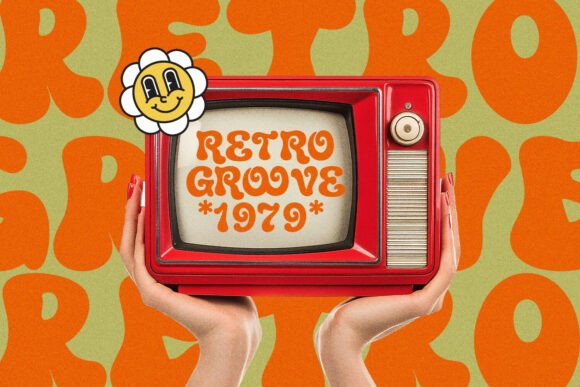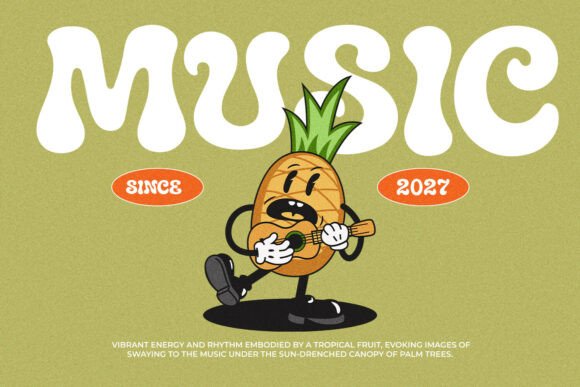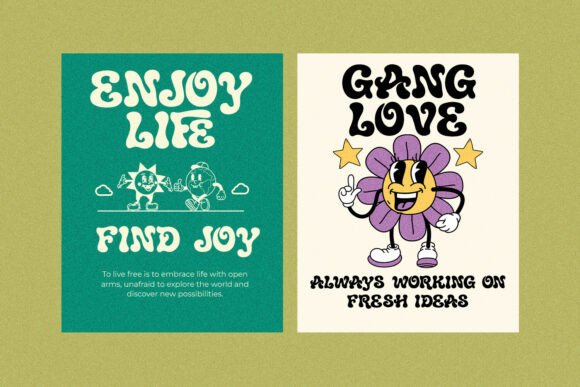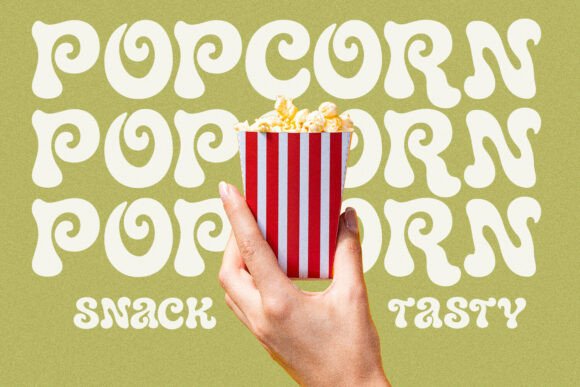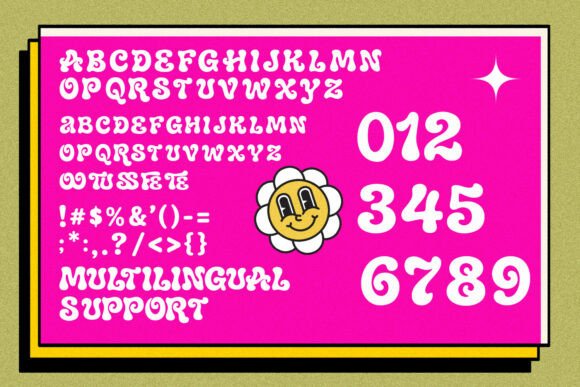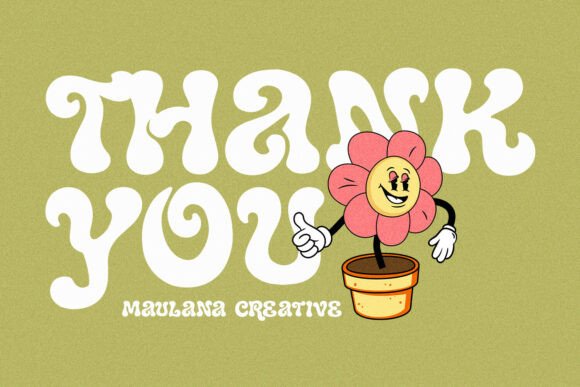
The Perfect Blend of Retro Funk and Modern Design
As designers, we’ve all had those moments when the perfect font comes along and sparks a creative idea. For us, it’s the thrill of discovering a typeface that perfectly captures the essence of a bygone era. And for those who crave a blast of nostalgia, we’re excited to introduce you to the Gediol Paund Font – a vibrant display font that embodies the carefree spirit of the 1970s.
Characterized by its bold, flowing curves and playful wavy structures, Gediol Paund Font radiates a cheerful, psychedelic energy that’s perfect for eye-catching headlines, vintage posters, and creative branding. With its unique ligatures, distinctive uppercase and lowercase characters, and full multilingual support, this font is a valuable addition to any designer’s toolkit.
Whether you’re looking to add a touch of classic retro charm to your next design project or simply want to tap into the nostalgia of a bygone era, the Gediol Paund Font is sure to inspire your creativity and bring a smile to your face.
Gediol Paund Font Key Features
- Unique Characteristics: The font features a unique blend of modern and vintage elements, with intricate details and ornate flourishes. It is ideal for creating eye-catching headlines and titles.
Gediol Paund Font Review
Overall, I have mixed feelings about the “Gediol Paund Font”. It’s a unique and quirky font that can add a touch of personality to certain designs. Here are some things that work well:
- ✨ The font has a distinct, handwritten feel that can be great for adding a personal touch to projects.
- ✨ The font comes in a range of weights and styles, making it versatile and easy to use.
- ✨ The font is well-suited for use in digital design, particularly on screens where its bold lines and rounded edges can help to grab attention.
- ⚠️ The font may be too bold or overpowering for certain designs, particularly those that require a more subtle or elegant look.
- ⚠️ The font’s quirky feel may not be suitable for all types of projects or audiences, particularly those that require a more professional or formal tone.
- ⚠️ Some users may find the font difficult to read, particularly at smaller font sizes or in situations where the text is densely packed.
Overall, I would recommend the “Gediol Paund Font” to designers who are looking to add a bold, playful touch to their projects. However, it may not be the best choice for more formal or professional designs.